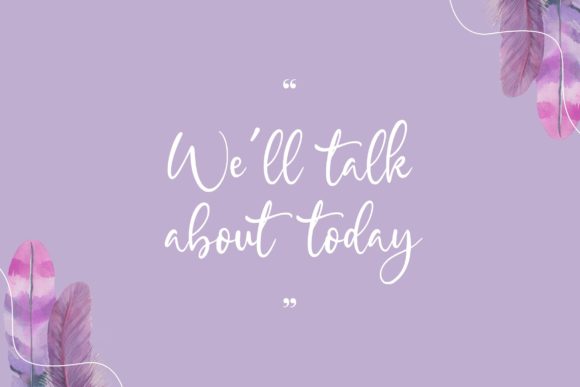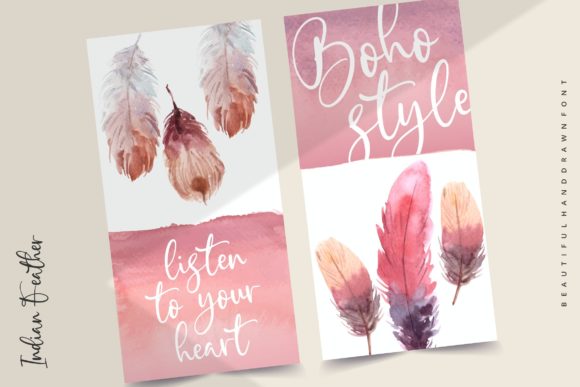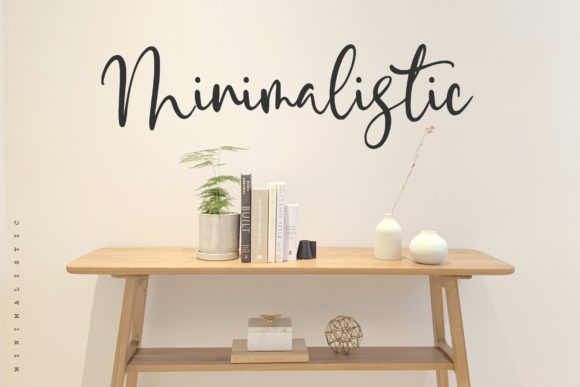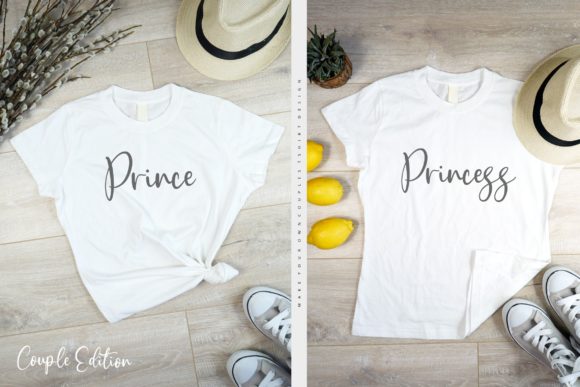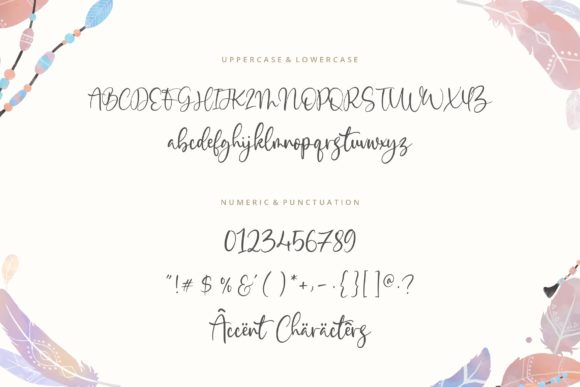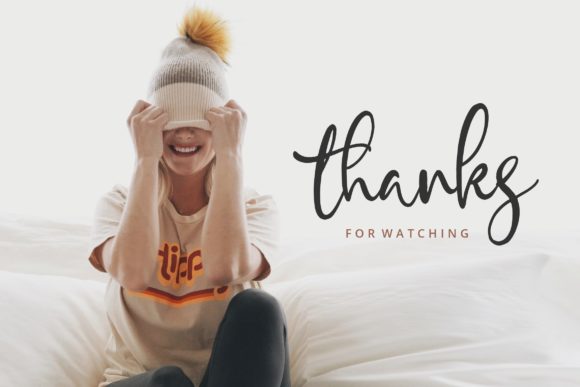
Introduction to Indian Feather Font
As designers, we’ve all been there – staring at a blank canvas, trying to bring our creative vision to life. But sometimes, all it takes is one special font to make our projects truly shine. For me, that font is the Indian Feather Font. Its elegant, dancing characters have a way of adding a touch of luxury to any design, making it truly unforgettable.
Whether you’re working on a romantic wedding invitation, a high-end fashion brand, or a luxury travel brochure, the Indian Feather Font is the perfect design resource to elevate your project. With its transparent background and high-quality design, it’s a versatile and stylish choice that’s sure to impress. And the best part? It’s available for free download, making it accessible to designers of all levels.
So why settle for a generic font when you can add a touch of sophistication and elegance with the Indian Feather Font? Whether you’re a seasoned pro or just starting out, this font is sure to become a valuable addition to your design toolkit.
Key Features of Indian Feather Font
- Unique, hand-drawn design with intricate details, perfect for creative projects and designs.
- Includes multiple font styles, including bold, italic, and regular, to cater to various design needs.
Honest Review: Indian Feather Font
I recently had the opportunity to work with the Indian Feather Font, and I must say, it’s been a game-changer for my creative project. The high-quality design and versatility of this font make it an excellent addition to any design resource.
What works well: ✨ The font’s unique, authentic design perfectly captures the essence of Native American culture. The transparent background allows for seamless integration with various design elements, making it incredibly easy to work with. I’ve used it for a range of projects, from logos to infographics, and it always looks stunning.
What doesn’t work well: ⚠️ While the font is available for free download, the limited number of styles may be a drawback for some designers. Additionally, the font may not be suitable for projects requiring a more modern or minimalist aesthetic.
Overall, I’m thoroughly impressed with the Indian Feather Font. It’s a fantastic design resource that adds a touch of elegance and sophistication to any creative project. If you’re looking for a unique, high-quality font for your next project, I highly recommend giving it a try.
- Unique, authentic design
- High-quality design and versatility
- May not be suitable for modern or minimalist designs
The Indian Feather Font is a unique and versatile design resource perfect for creative projects. With its high quality and transparent background, it can add a touch of elegance to any design.
To get the most out of the Indian Feather Font, use it for titles, headings, and other prominent text elements. You can also experiment with different font sizes and styles to create a unique visual effect.
The Indian Feather Font is perfect for wedding invitations, event branding, and other creative projects that require a touch of elegance and sophistication.